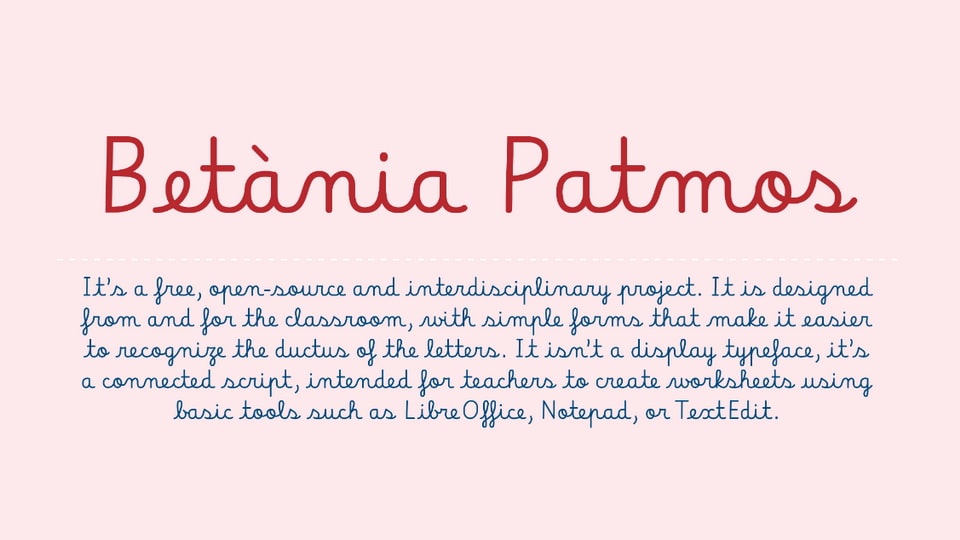
Download Betània Patmos font, a interdisciplinary project designed from and for the classroom. It isn’t a display typeface; it’s a connected script for teachers to create educational materials using basic tools.
Designer: Huerta Tipográfica